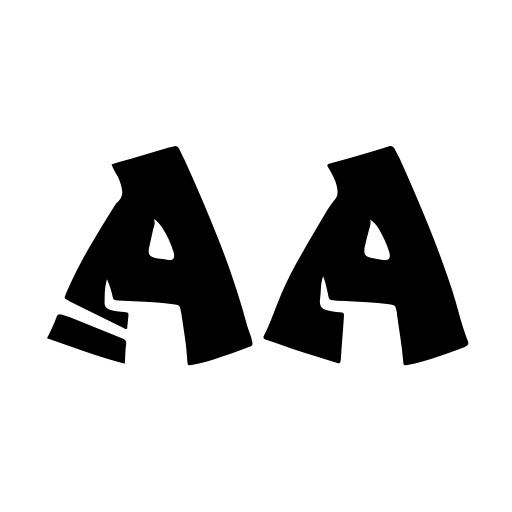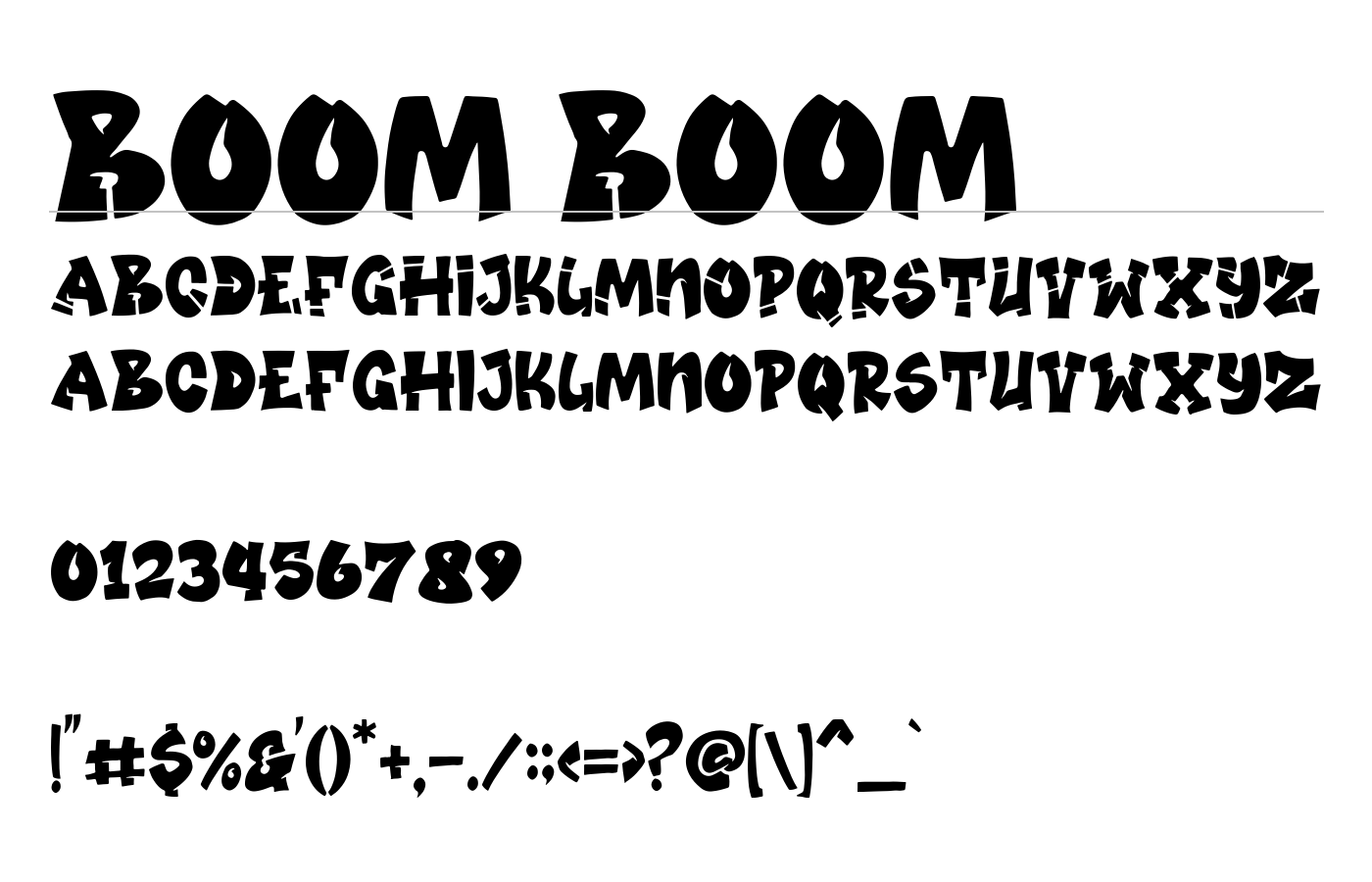
Boom Boom Font is a bold, playful display typeface with a strong comic and whimsical vibe. Its chunky letterforms feature exaggerated curves and uneven edges, giving it an energetic, informal personality that's perfect for eye-catching headlines, children's projects, and fun branding. This font works well where a lively, hand-crafted look is needed to grab attention and convey joy or excitement.
Boom Boom Font
About Boom Boom Font
| Font family | Boom Boom Font |